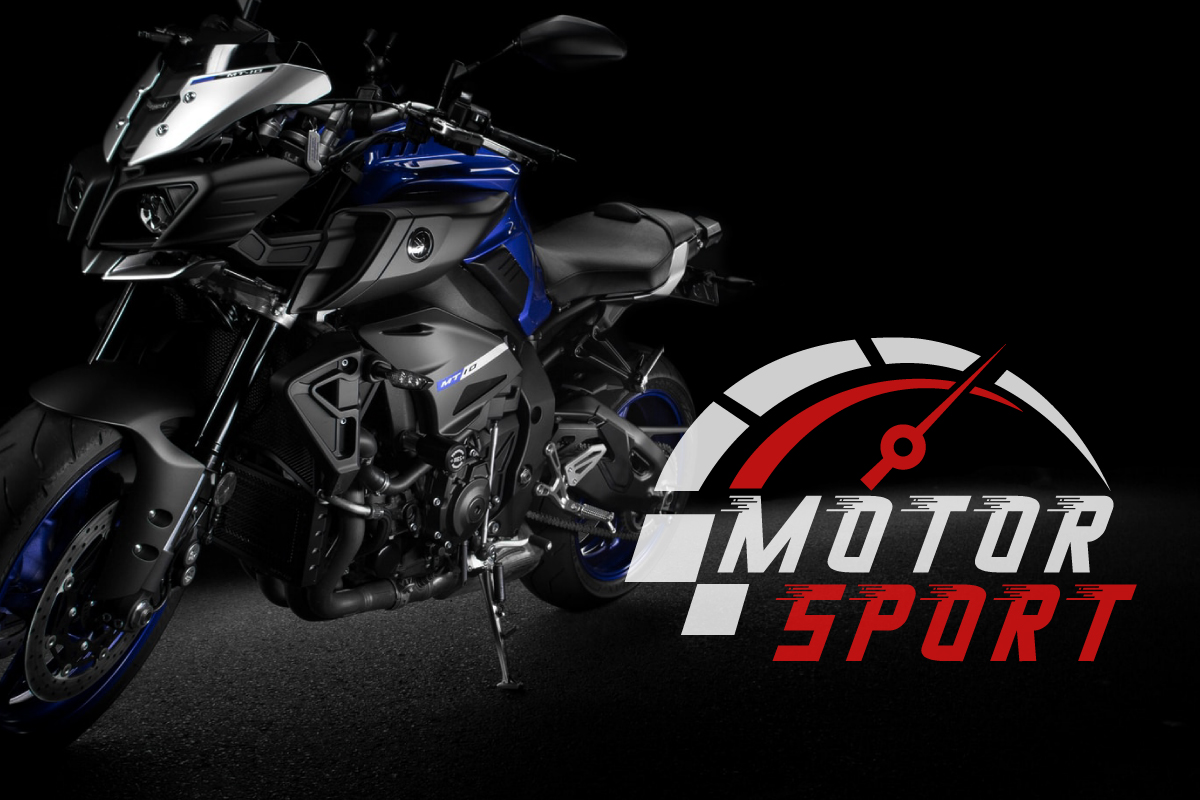
Sprint Runner Font
Sprint Runner Display Font
This is a racing sport display font with a speedy effect in each letter designed by VinType Studio. This font will be suitable for many industries such as advertising and marketing, automotive, fashion, game, gym, racing, sports club, publishing, printing, and many more!
Sprint Runner Font will be perfect for your projects that require a modern and sporty touch such as brand logo, business card, brochure, catalog, flyer, headline, label, poster, product design, quote, signage, website, etc.